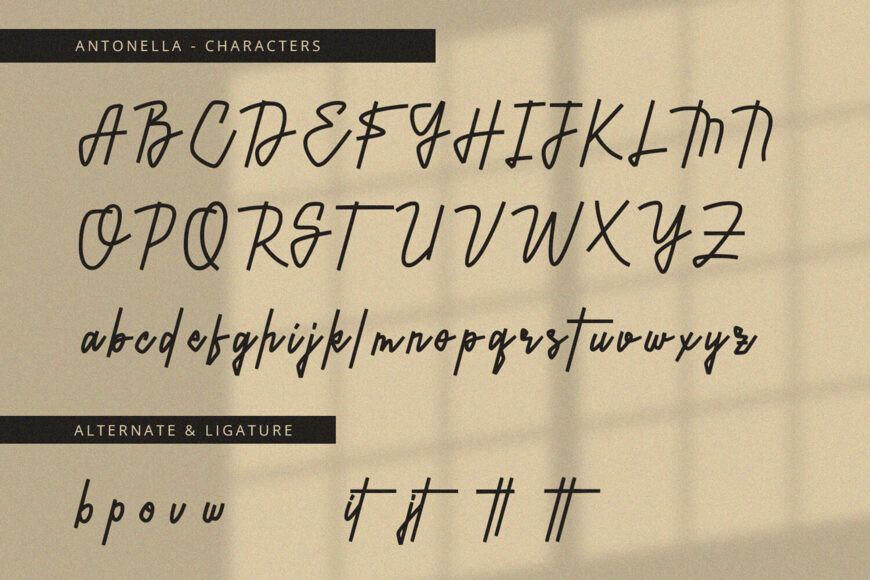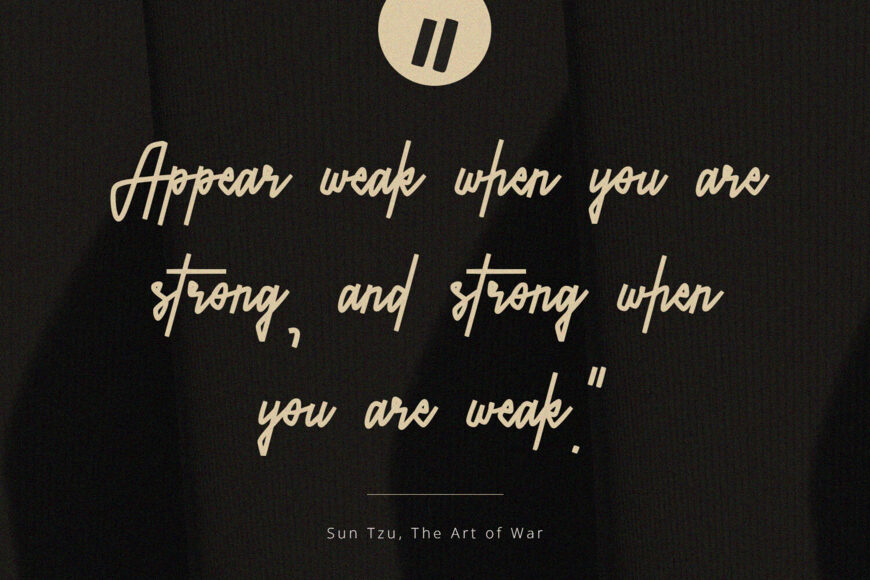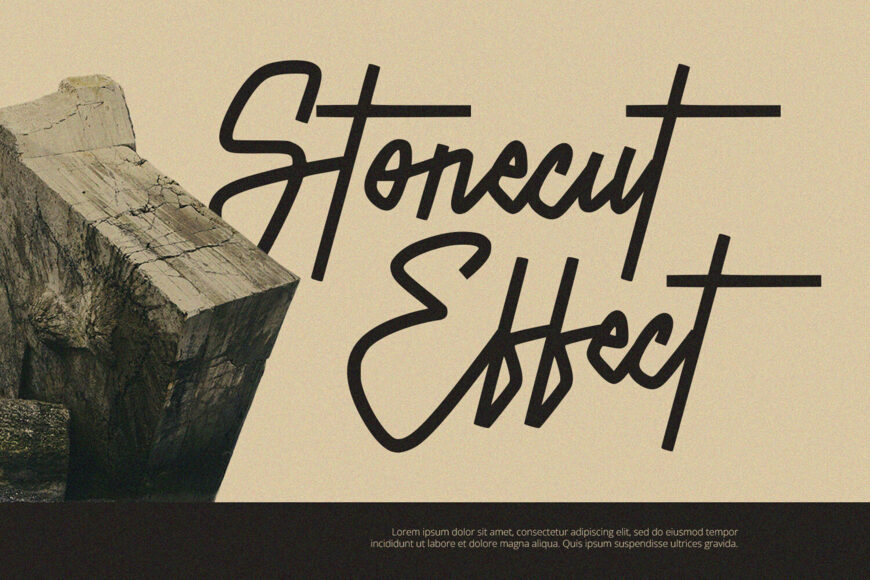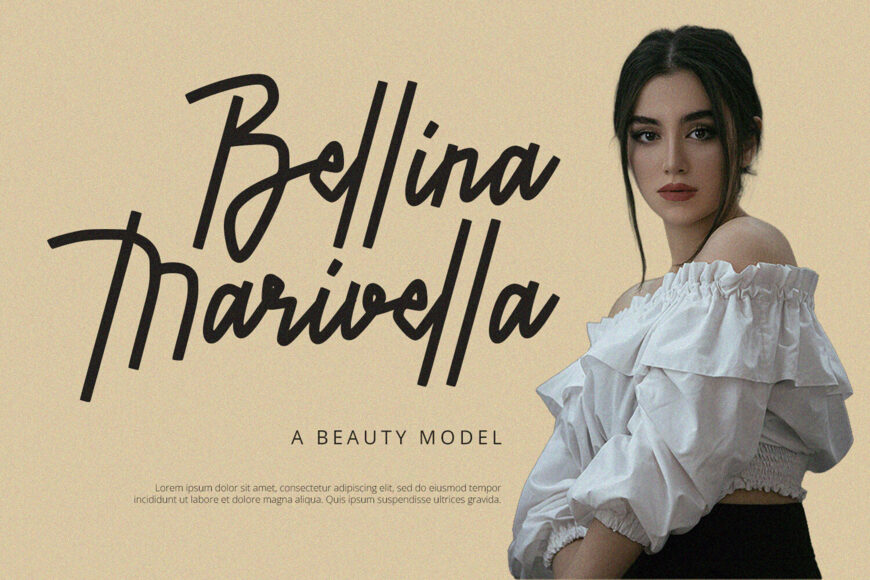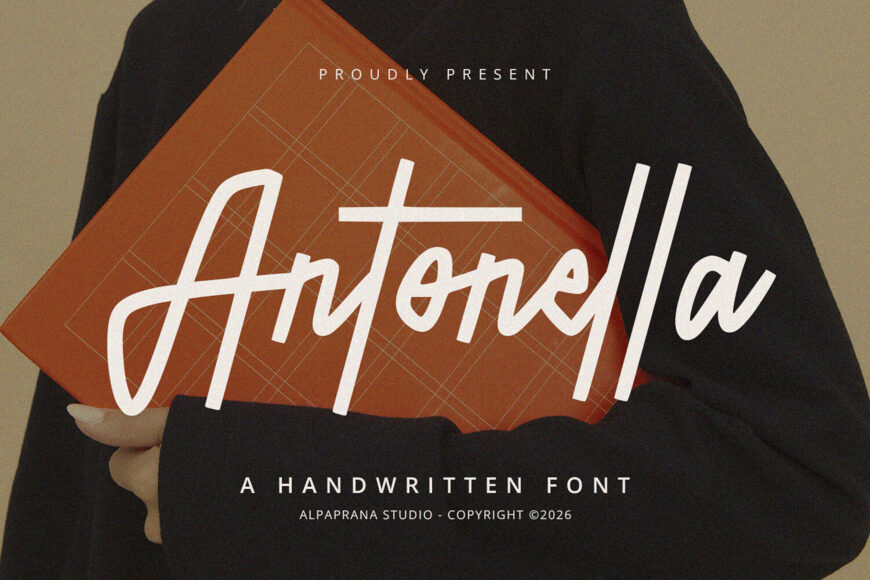
Antonella Font
Antonella is a distinctive handwritten font with a modern, artistic feel. It’s ideal for branding, logo design, lettering, logotypes, clothing, posters, magazines, packaging, shopping bags, T-shirts, book covers, photography, special events, and many other creative projects.